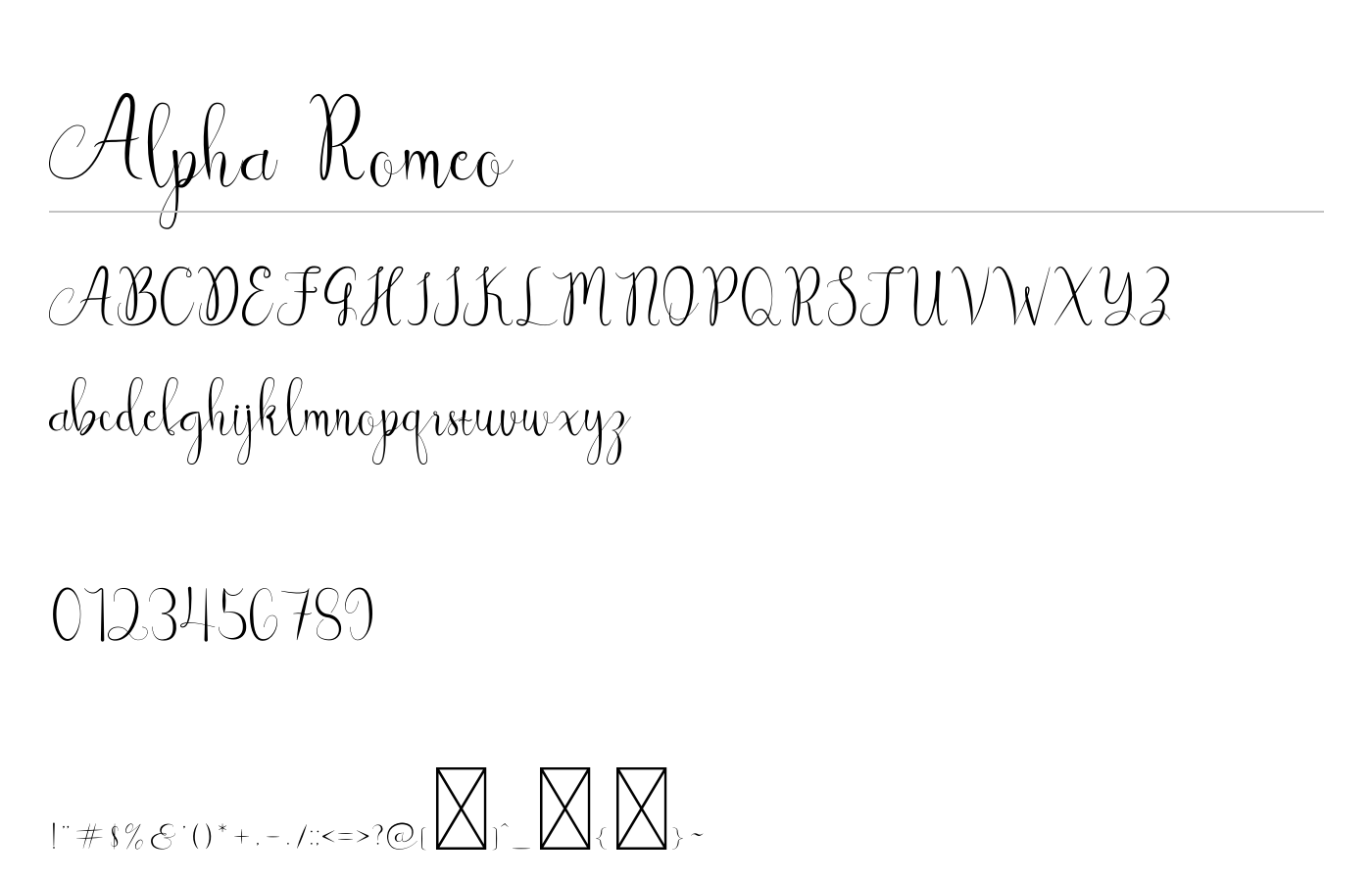
Alpha Romeo is a delicate and elegant script font with thin, flowing strokes and a refined, handcrafted feel. Its slender letterforms and gentle curves make it ideal for sophisticated branding, invitations, and fashion-related designs where a touch of grace and femininity is desired. This font works best in decorative contexts where its airy and artistic style can shine in headlines or logos.
Alpha Romeo Font
About Alpha Romeo Font